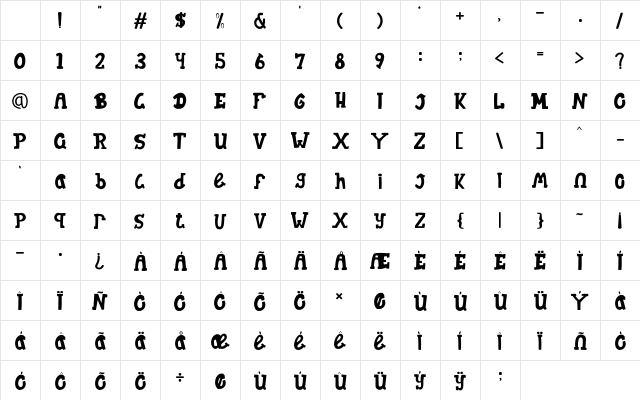
Jelly Squer is a composed and adaptable typeface that performs quietly and consistently across a wide range of design contexts.
Pro Tip: Use Jelly Squer in both headline and body roles to test its range before committing to a single application.